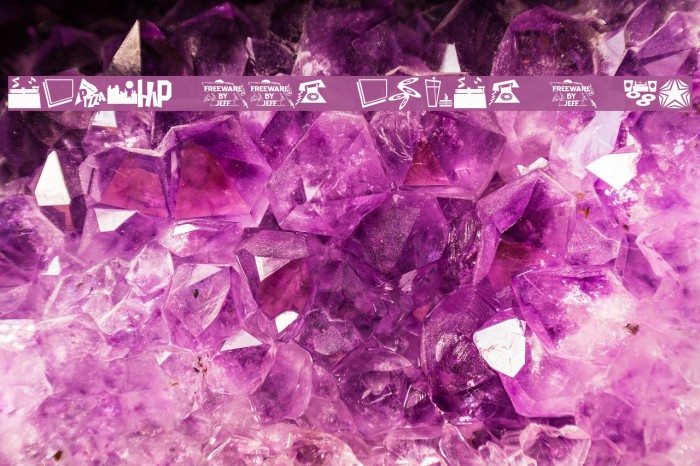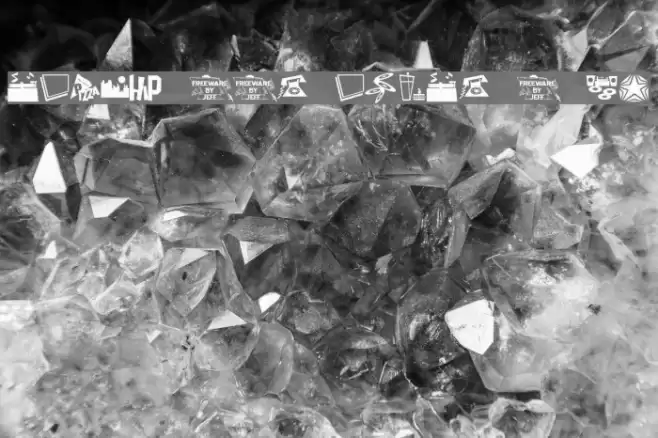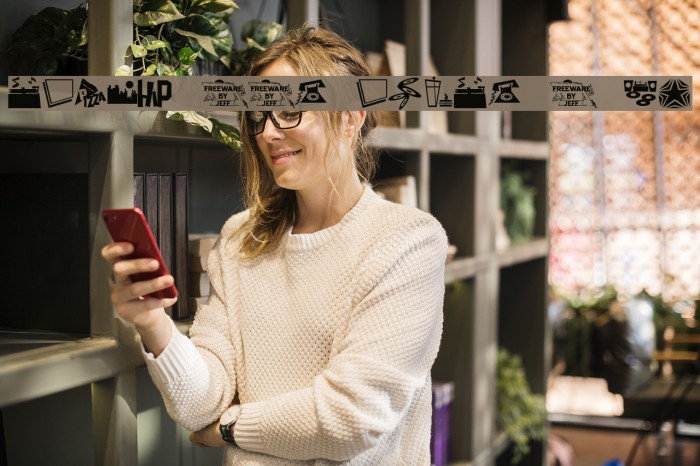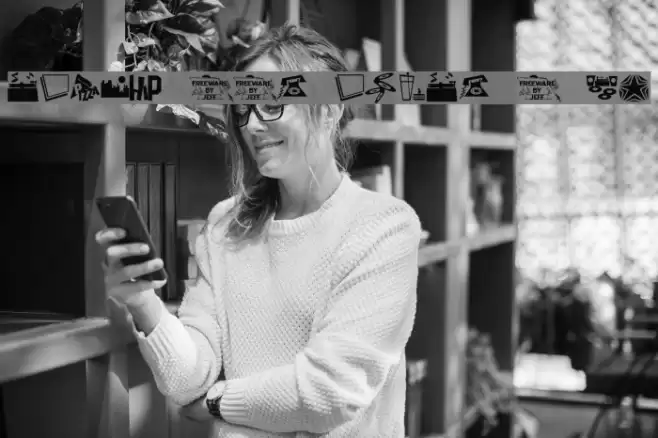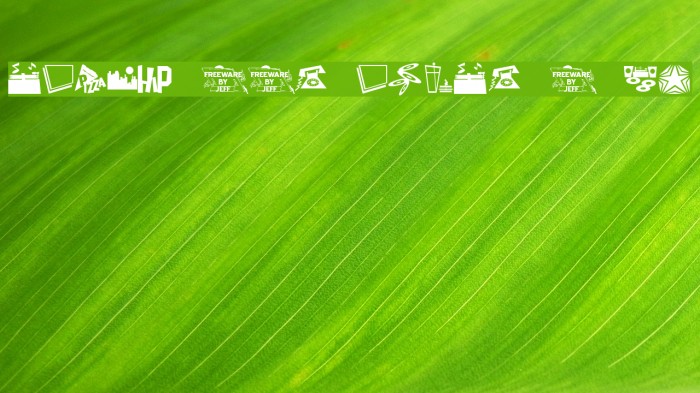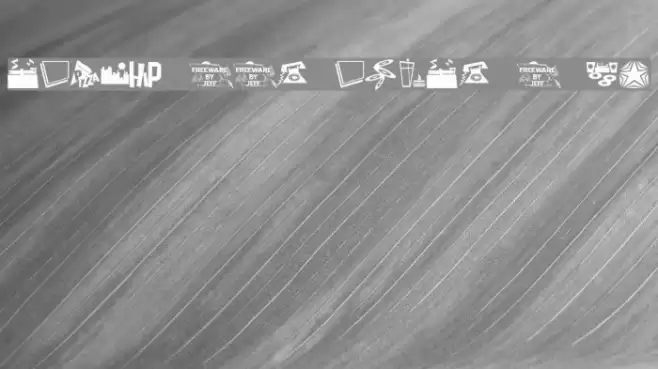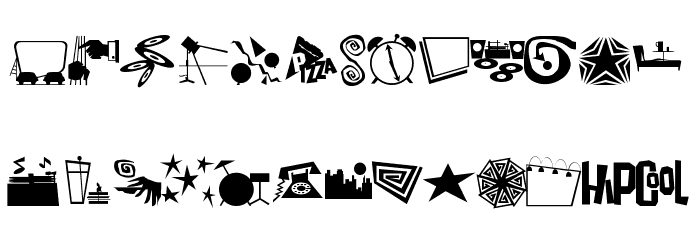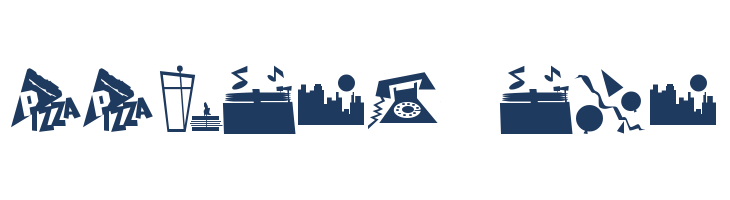
Nifty 50's Icons 3 JL Font
Nifty 50's Icons 3 JL Description
A playful icon and dingbat set inspired by 1950s American pop culture, featuring stylized illustrations such as TVs, drinks, pizza, musical instruments, geometric shapes, and retro lettering. The glyphs are bold, high-contrast, and cartoonish, evoking a fun, nostalgic vibe.
Retro 1950s-themed icon and dingbat set with bold, playful illustrations from Uncategorized fonts.
- Proposed Projects: Party invitations, event posters, retro-themed branding, scrapbooking, educational materials, decorative headings.
- Overall Style: Vintage, Decorative, Playful
- Use Case: Icons, Decorative elements, Themed graphics